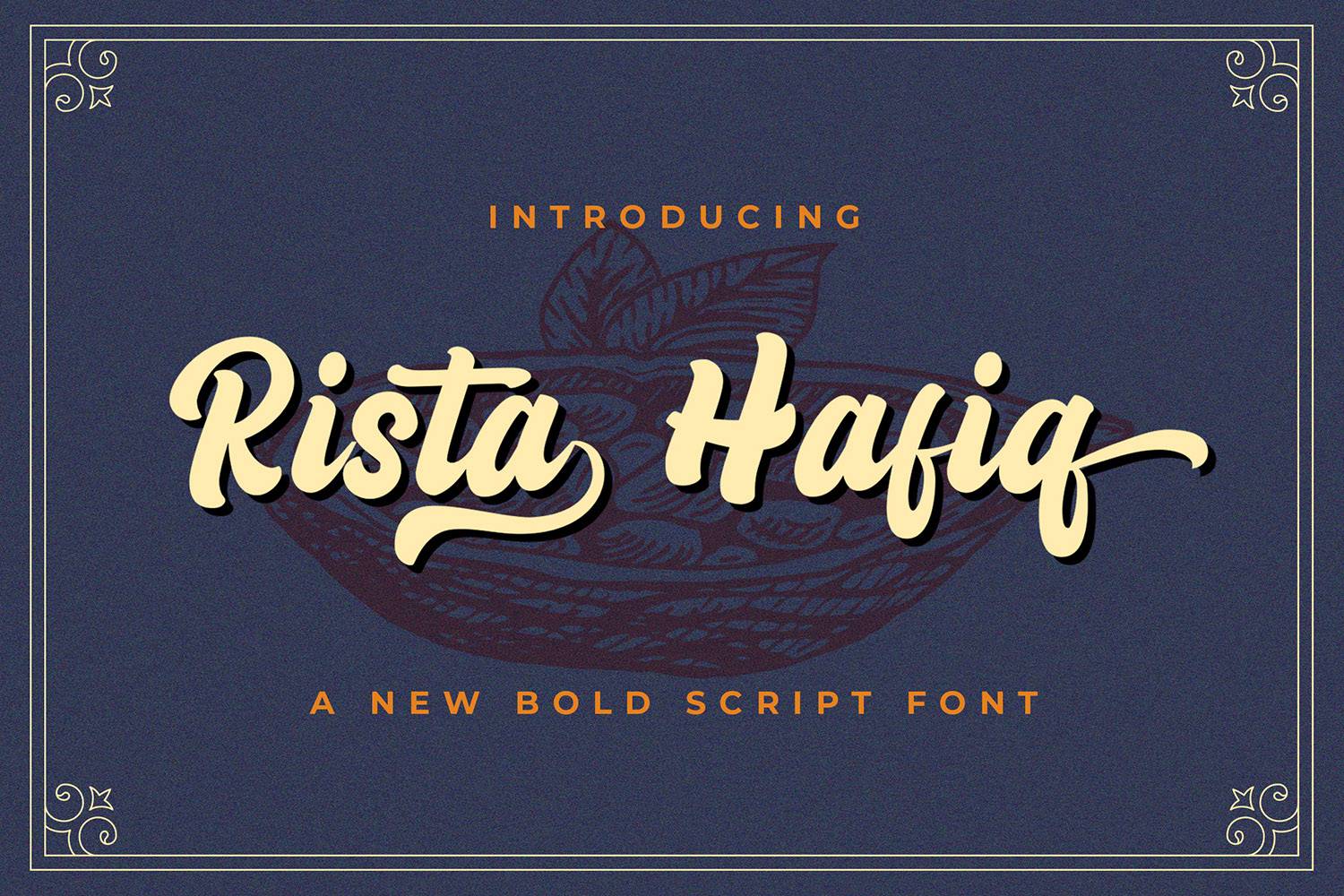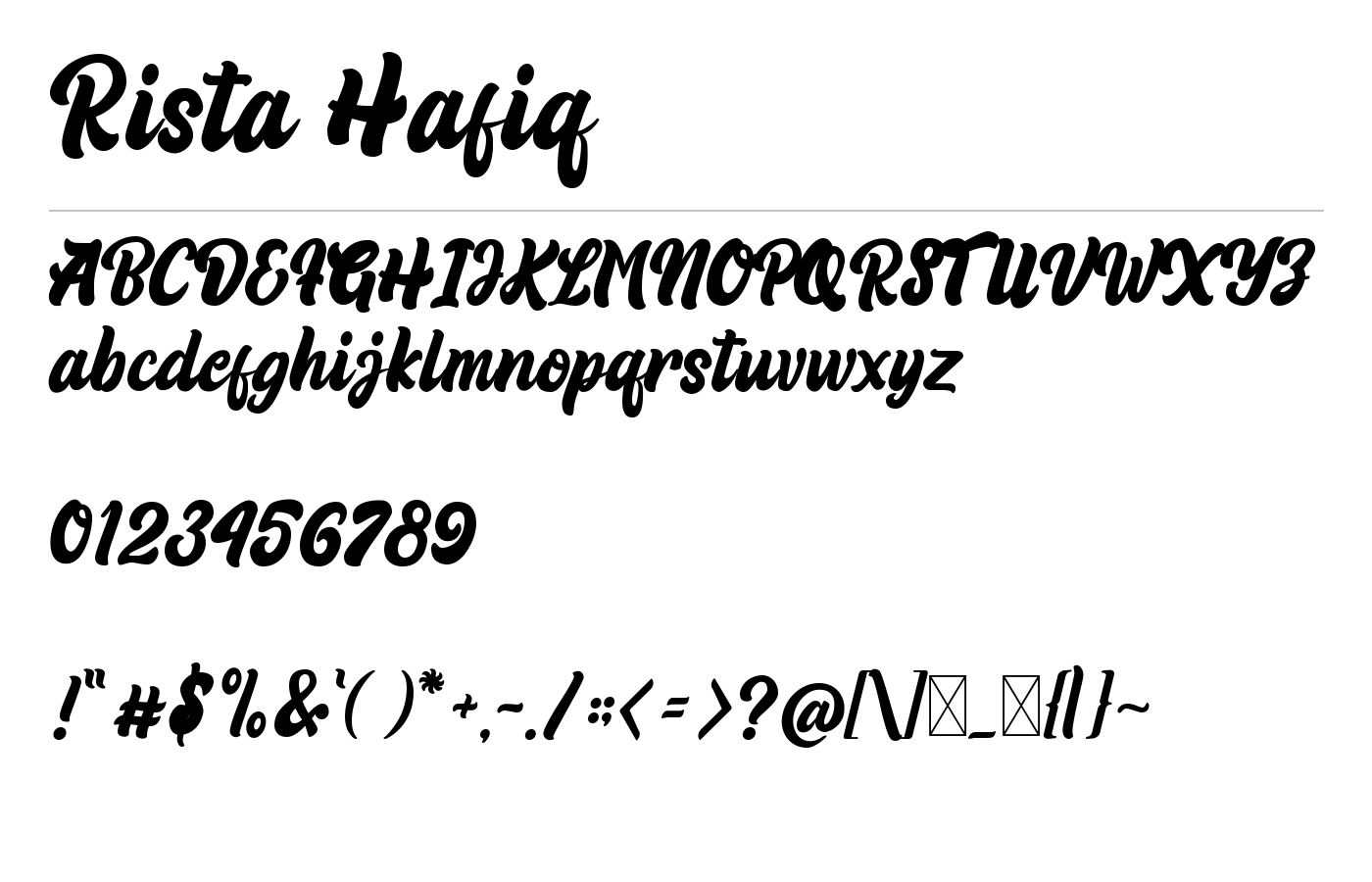
Rizta Hafiq is a bold, cursive script font with a lively and playful personality. Its smooth, rounded strokes and moderate contrast give it an inviting and friendly feel, making it perfect for branding, logos, and creative projects that want to convey approachability and charm. This font works well in headlines and decorative text where a touch of casual elegance is needed.
Rizta Hafiq Font
About Rizta Hafiq Font